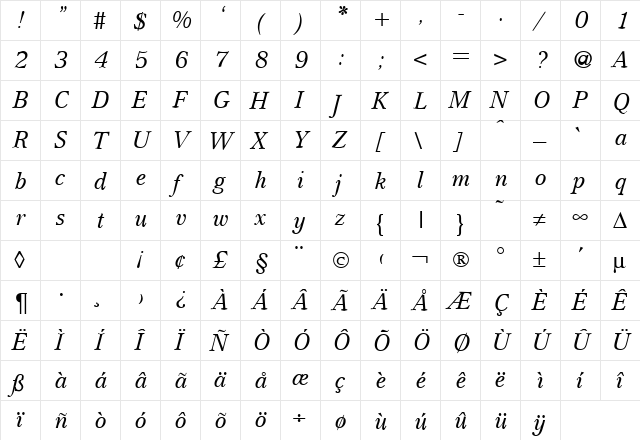
Crescent RegularItalic Font Preview
Crescent RegularItalic
Design Context for Crescent Typeface
Crescent offers clean, dependable letterforms without strong stylistic allegiance, making it a practical choice for designers who need flexibility. Its italic angle brings a sense of urgency and motion to the letterforms.
Pro Tip: Try Crescent for annotation and caption copy alongside an upright companion — the contrast in angle creates a dynamic but ordered typographic system.